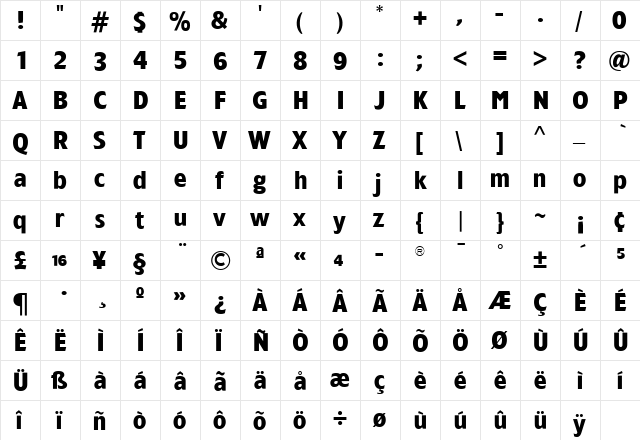
TFForever Bold
| Foundry | J. Treacy,Treacyfaces,Inc |
| Year | 1988 |
TFForever offers clean, dependable letterforms without strong stylistic allegiance, making it a practical choice for designers who need flexibility. The heavy weight commands attention and anchors typographic hierarchies.